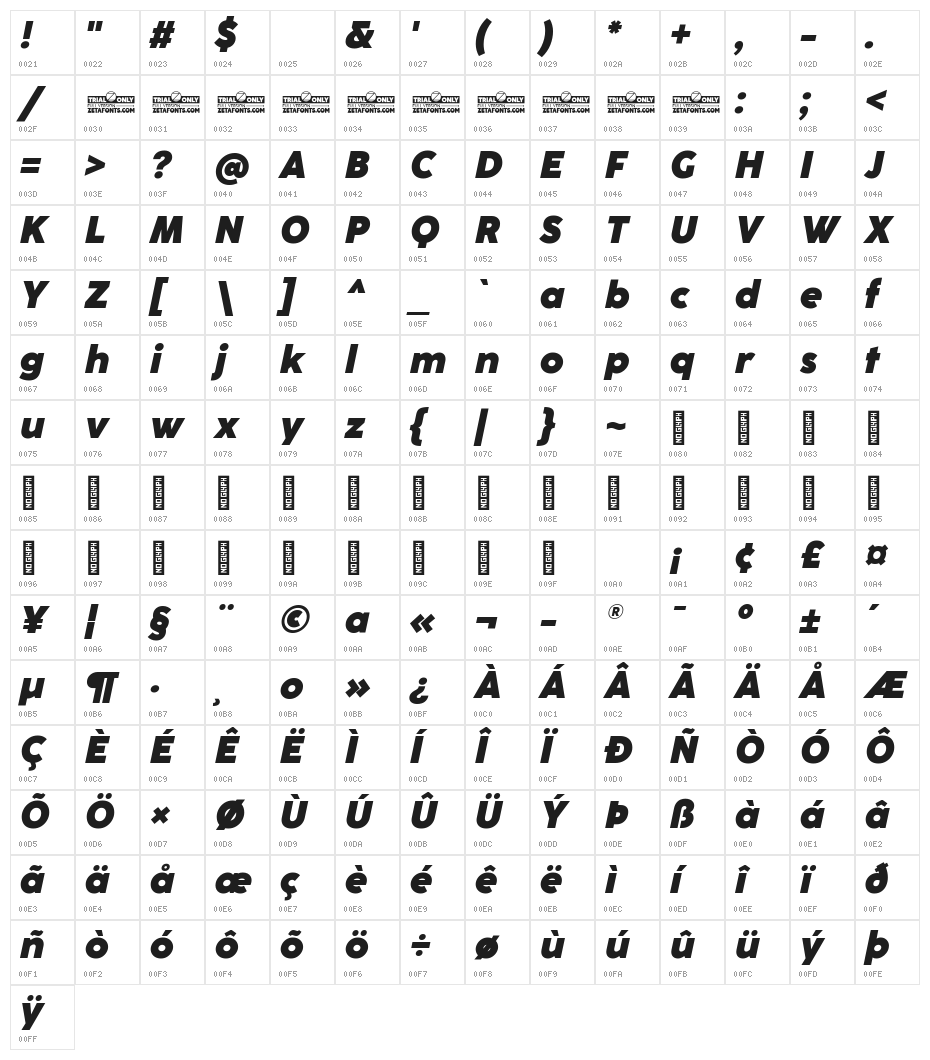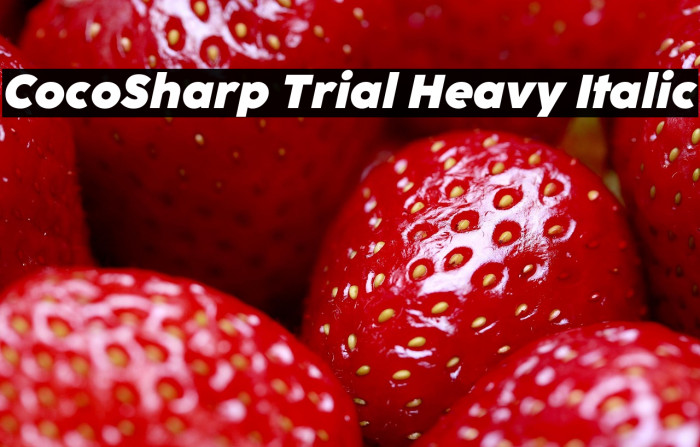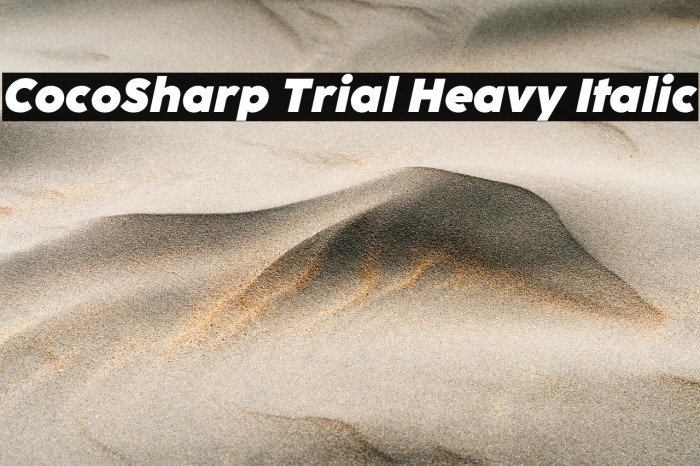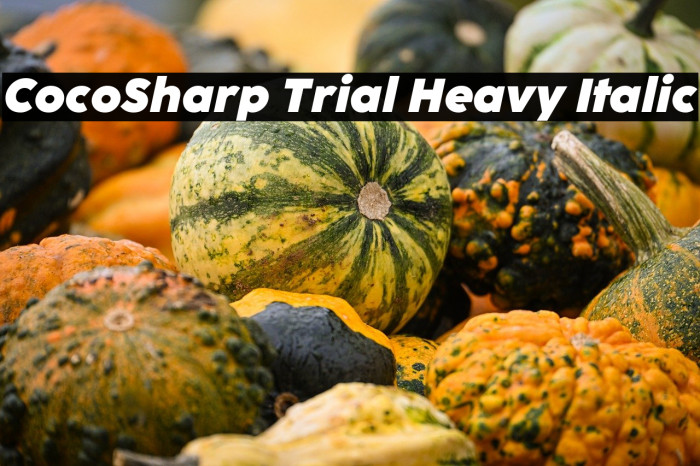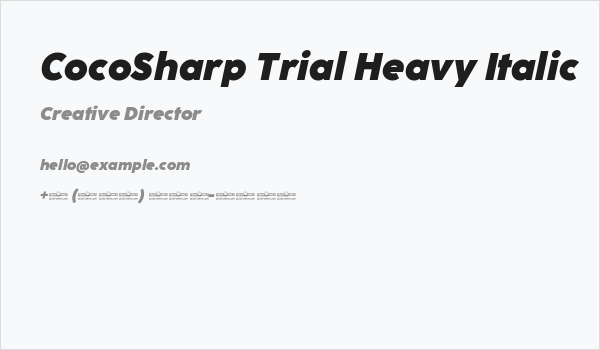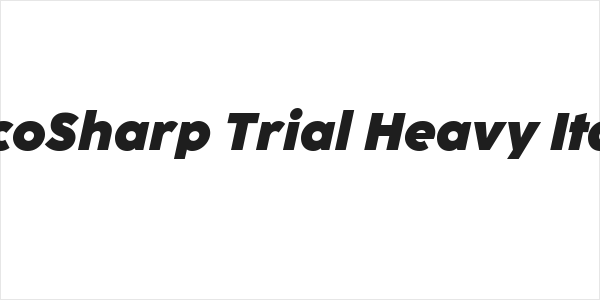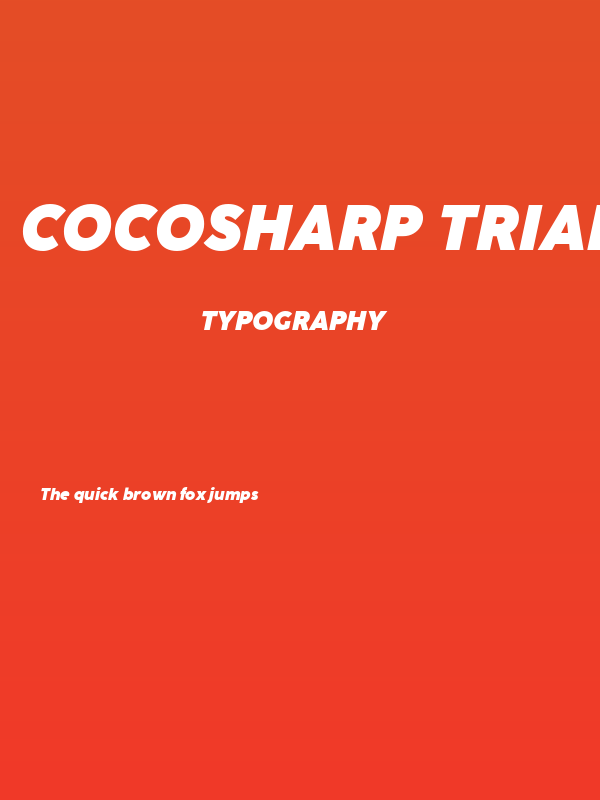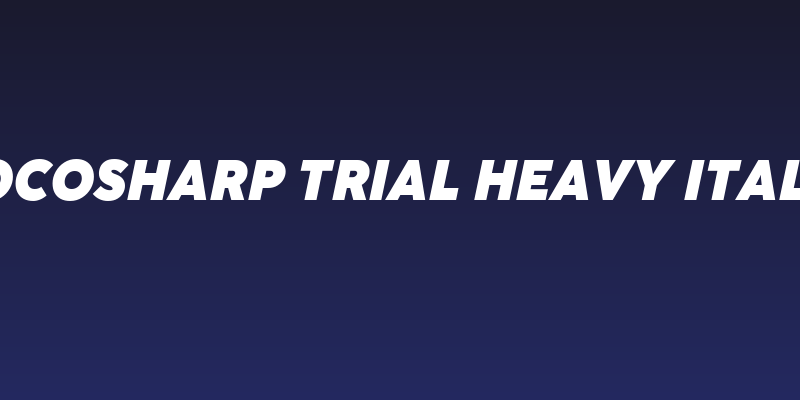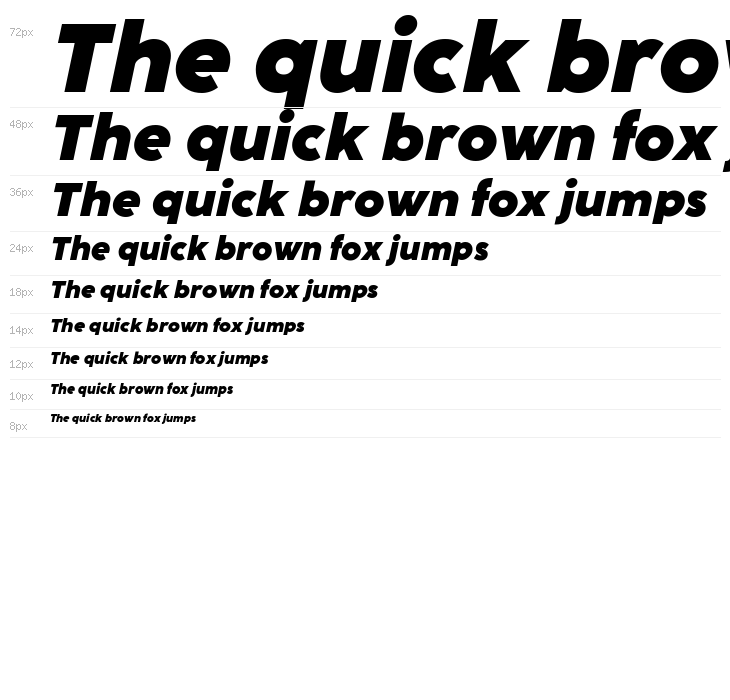
CocoSharp Trial Heavy Italic Font
CocoSharp Trial Heavy Italic Description
This font exhibits a bold and dynamic presence with its heavy weight and italic style. The characters are robust and convey a sense of strength and modernity. The italic slant adds a touch of movement and energy, making it suitable for attention-grabbing headlines. The uppercase letters are particularly striking, with a consistent thickness that enhances readability. The lowercase letters maintain the same boldness, ensuring uniformity across text. Special characters are designed with the same emphasis on boldness, making them stand out effectively. The overall style is contemporary, with a focus on clarity and impact.